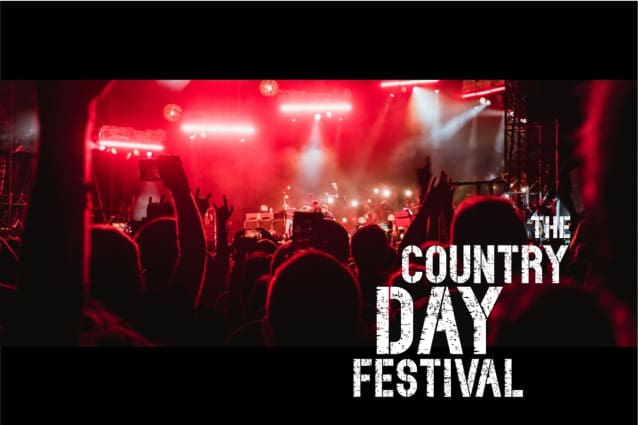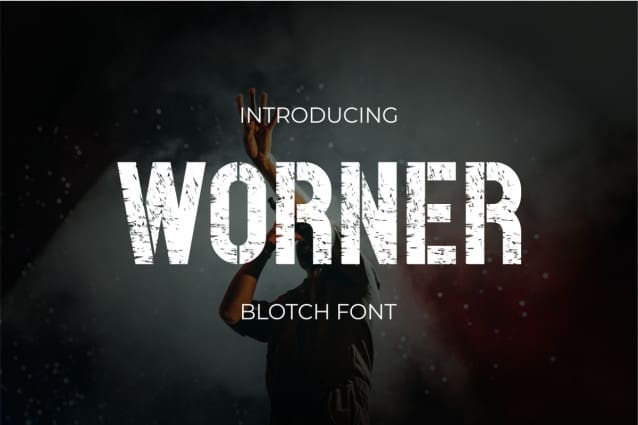
Worner Blotch Font
Worner Blotch Font is a challenging and wildly popular blotch font, coming in a modern style to become a favorite with the market. We keep this font looking elegant, classy, ​​easy to read, stylish, attractive and easy to use. The Worner Font is a great choice for film, music, art, challenging design, and other projects. The Worner font is here to take your designs to the next level.